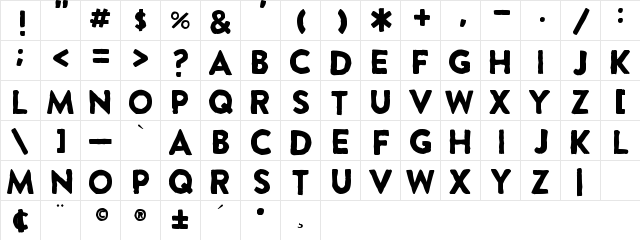
Extra Grotesque Regular
Design Context for Extra Grotesque Typeface
Extra Grotesque takes a measured approach to typography — its balanced proportions and neutral character make it a reliable workhorse for both digital and print work.